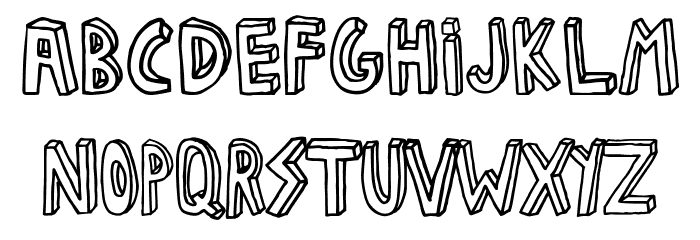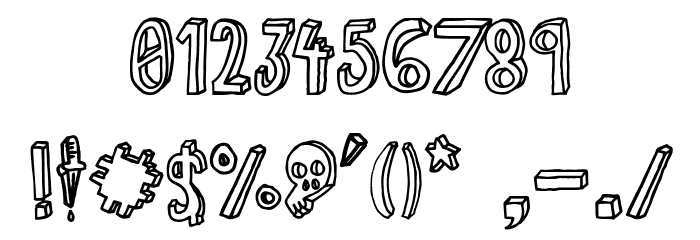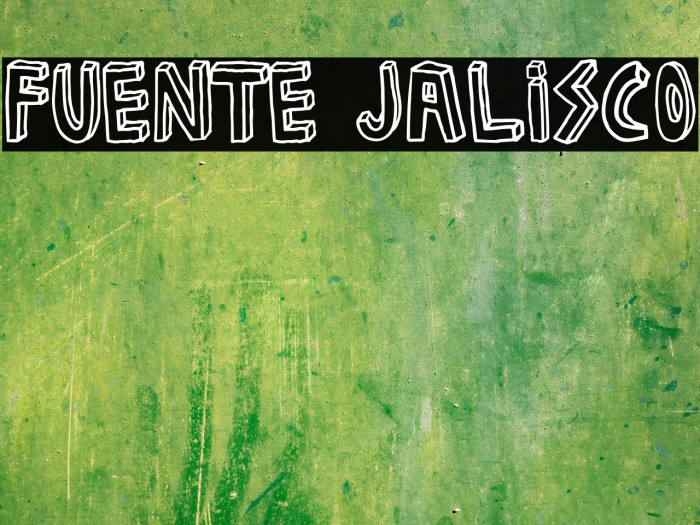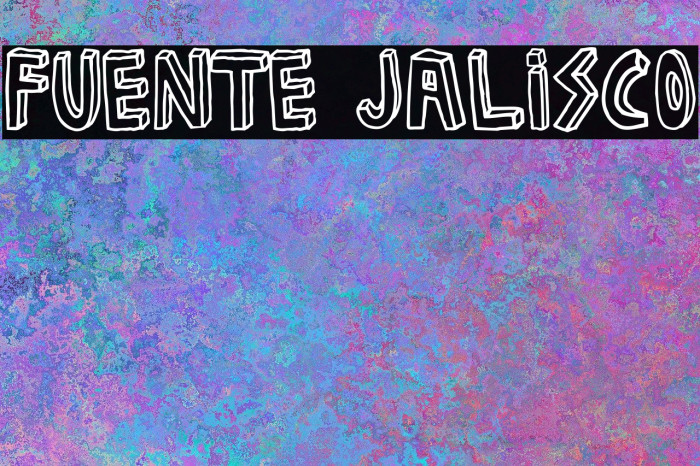
Fuente Jalisco Font
This font features a playful and bold 3D outline style, giving each character a dynamic and eye-catching appearance. The letters are uppercase and lowercase with a consistent thickness, creating a cohesive look. The numbers and special characters follow the same design, ensuring uniformity across all glyphs. The font's hand-drawn aesthetic adds a whimsical touch, making it ideal for projects that require a fun and informal vibe. Its unique style is perfect for capturing attention and conveying a sense of creativity and energy.
A playful, bold 3D outline font with a hand-drawn aesthetic.
- Proposed Projects: Ideal for children's books, comic strips, posters, and creative branding.
- Overall Style: Playful, Creative
- Use Case: Headlines, Posters, Branding